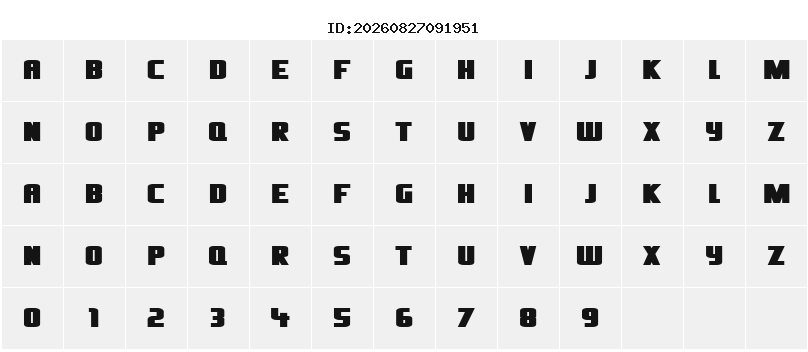
390-CAI978 Preview
• Font Name: 390-CAI978
• Font ID: 390-CAI978:Version 1.00
• Full Font Name: 390-CAI978
• Version: Version 1.00 October 27, 1997, initial release
• PostScript Name: 390-CAI978
• Character Count: 205
About 390-CAI978.ttf
390-CAI978.ttf is a modern, elegant sans-serif font designed for ultimate readability and visual harmony. Perfect for branding, headlines, web design, and print materials.